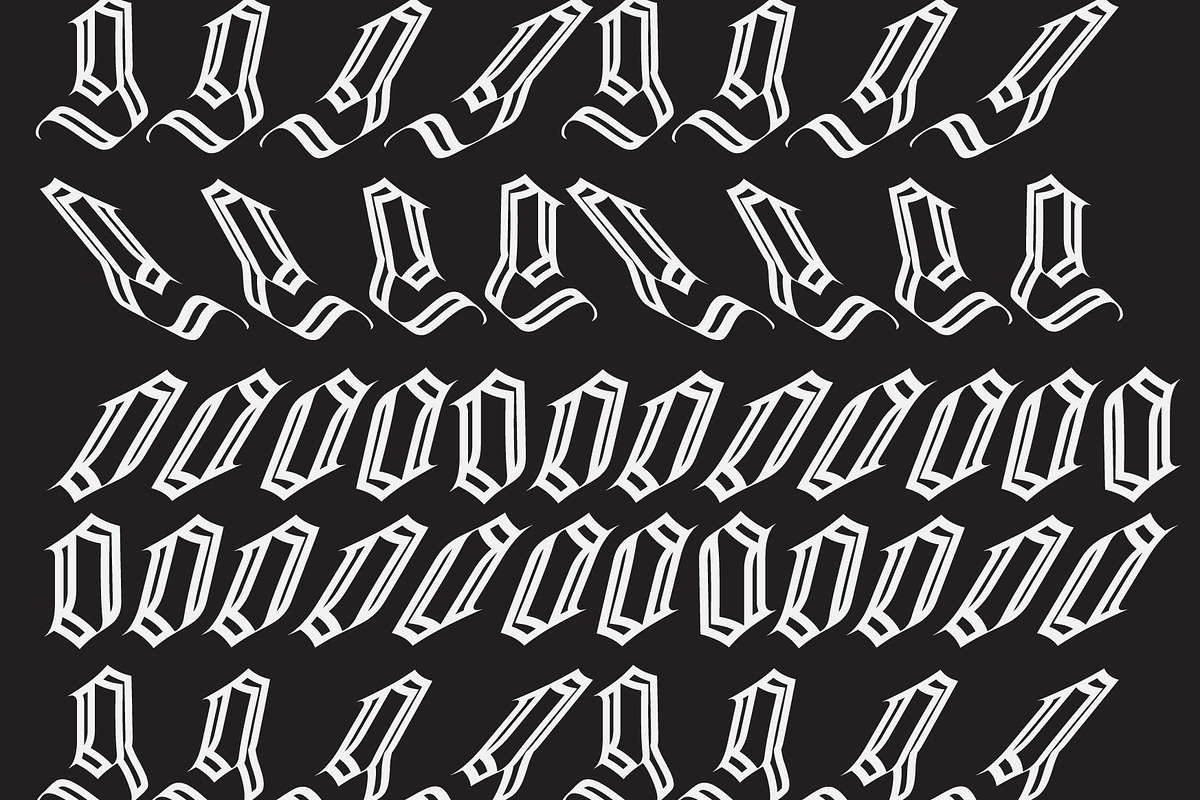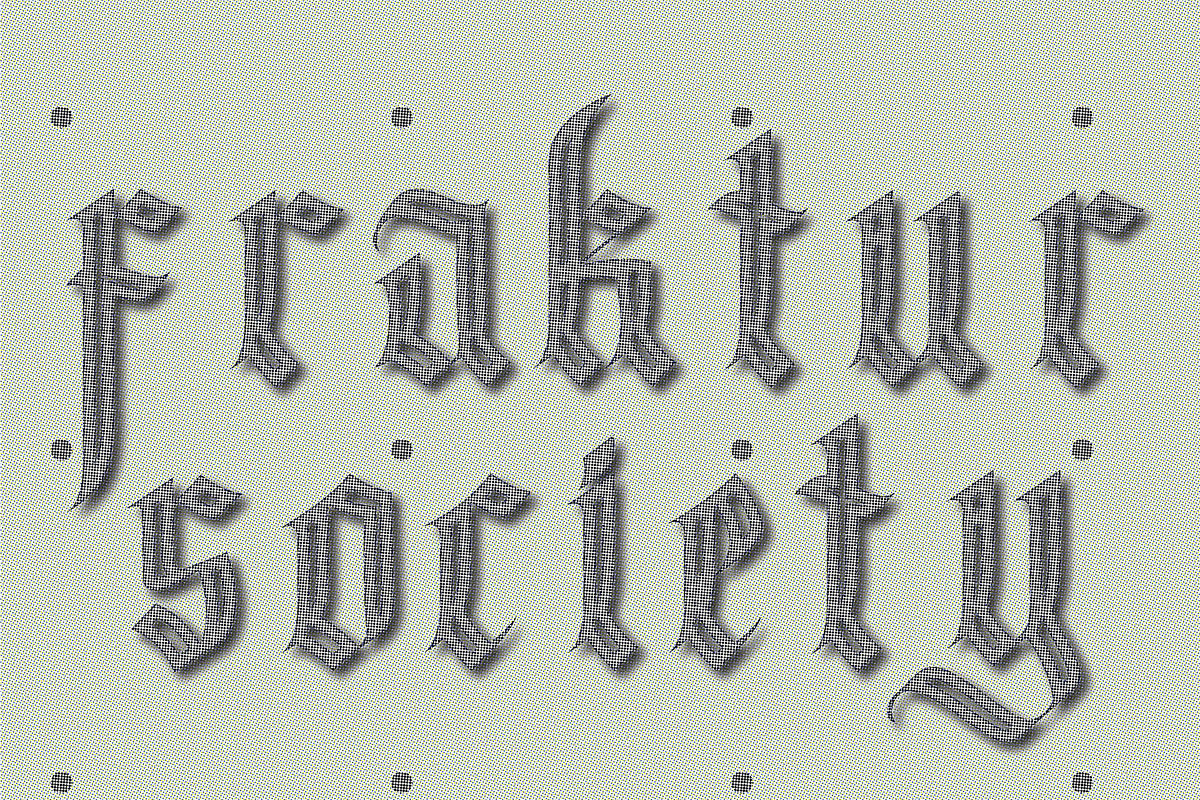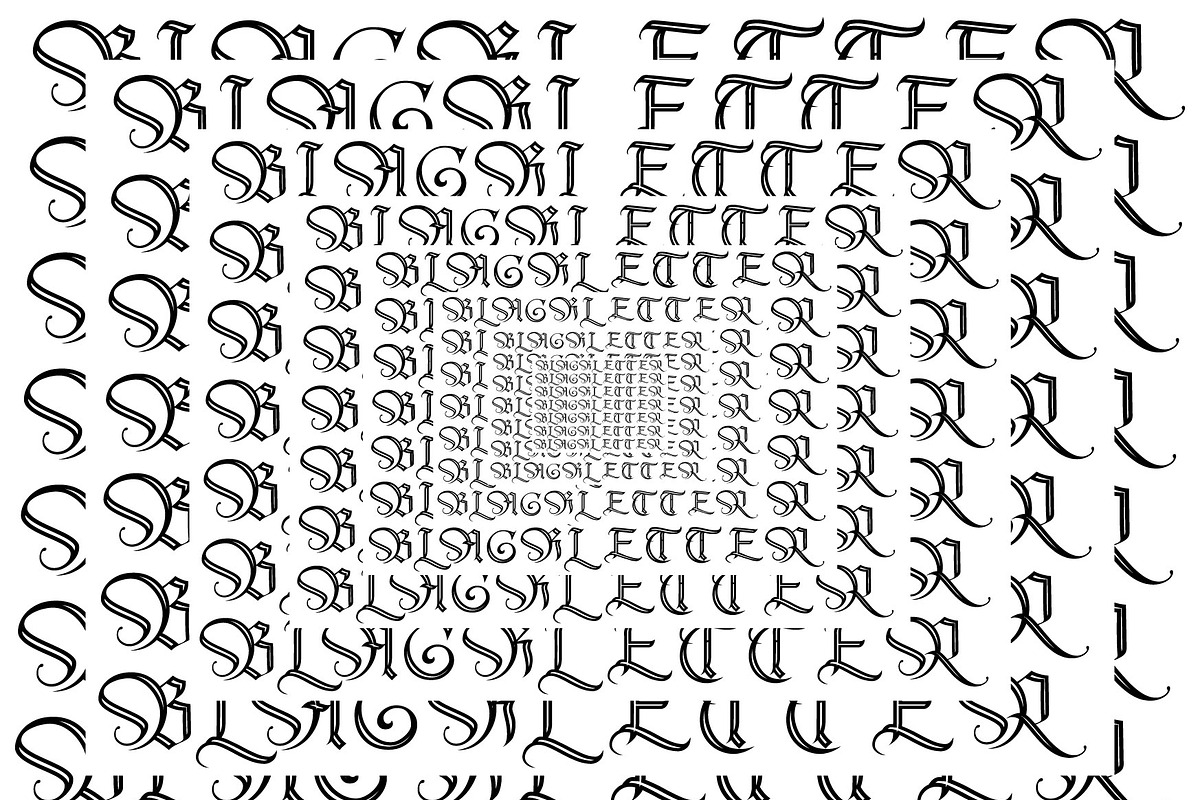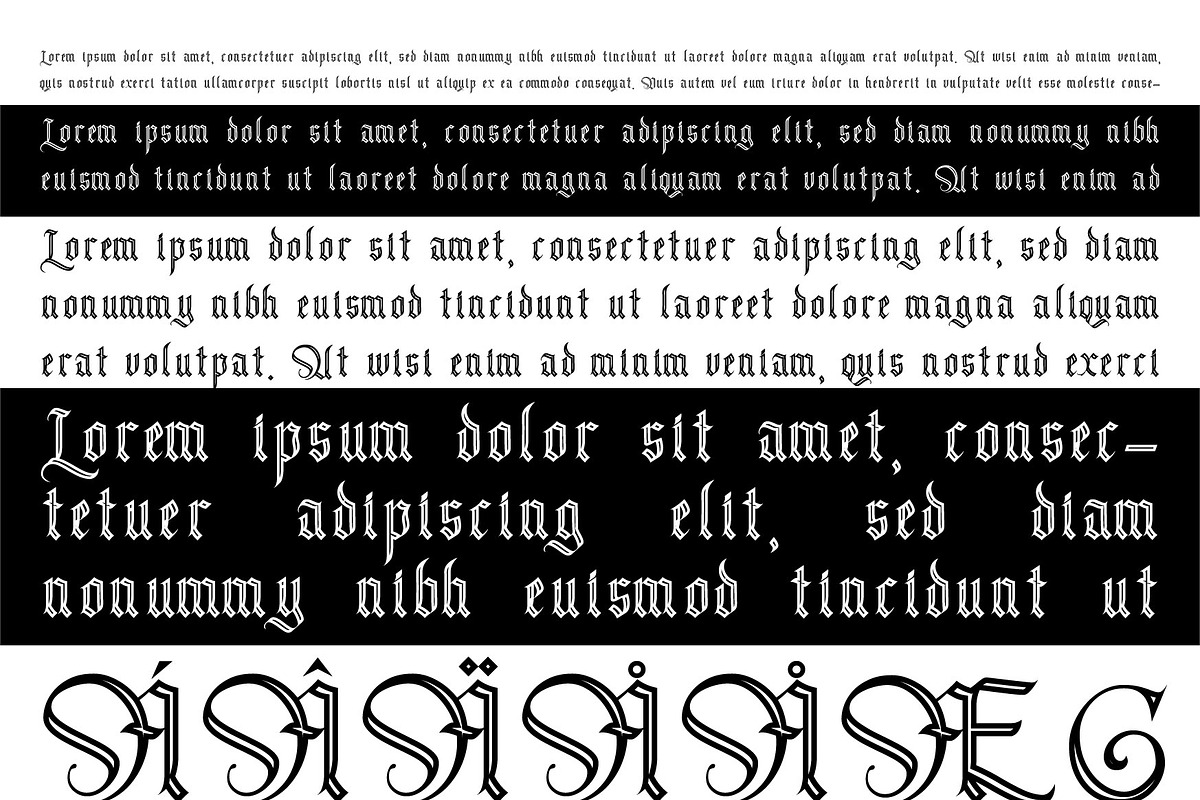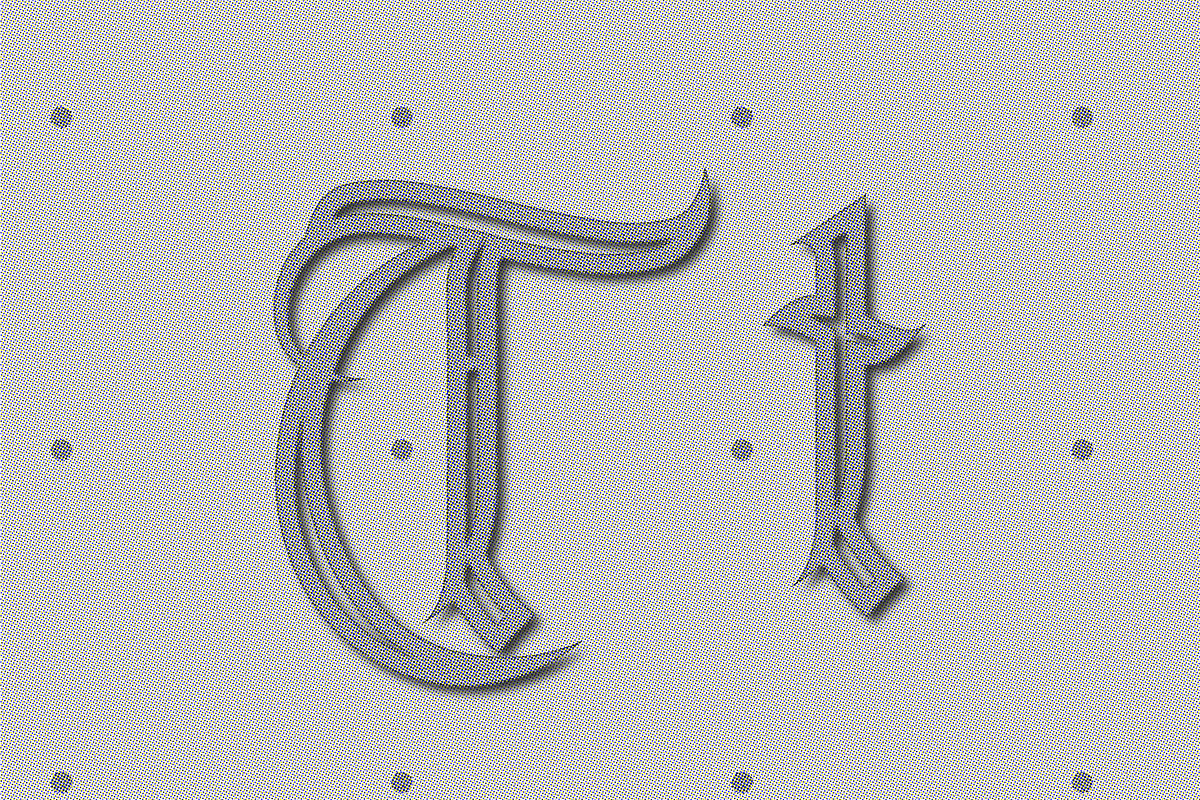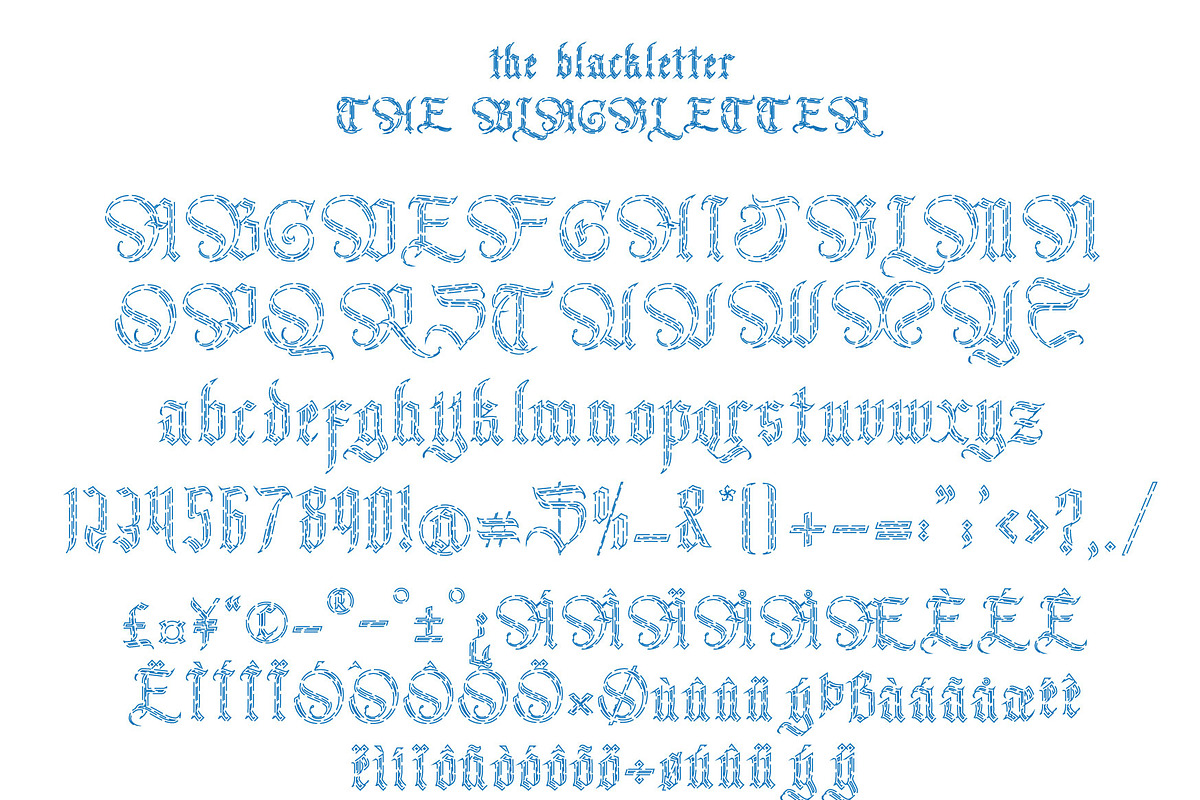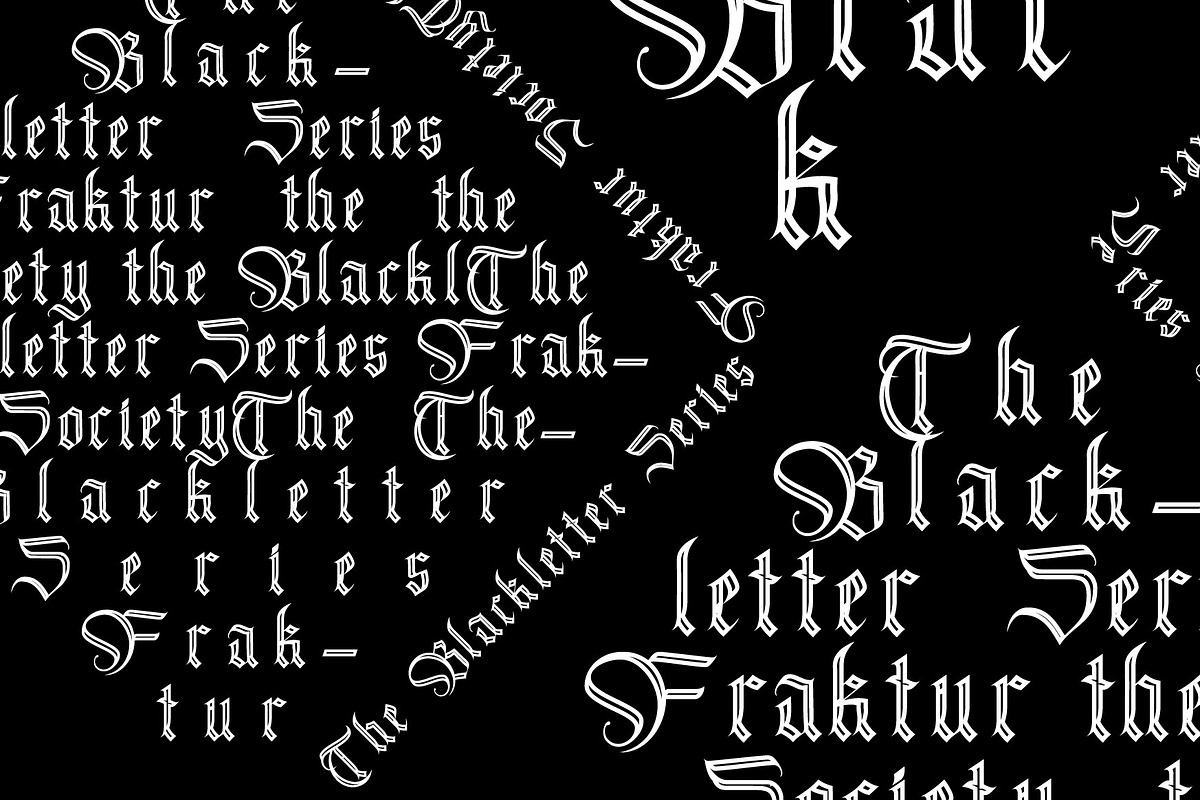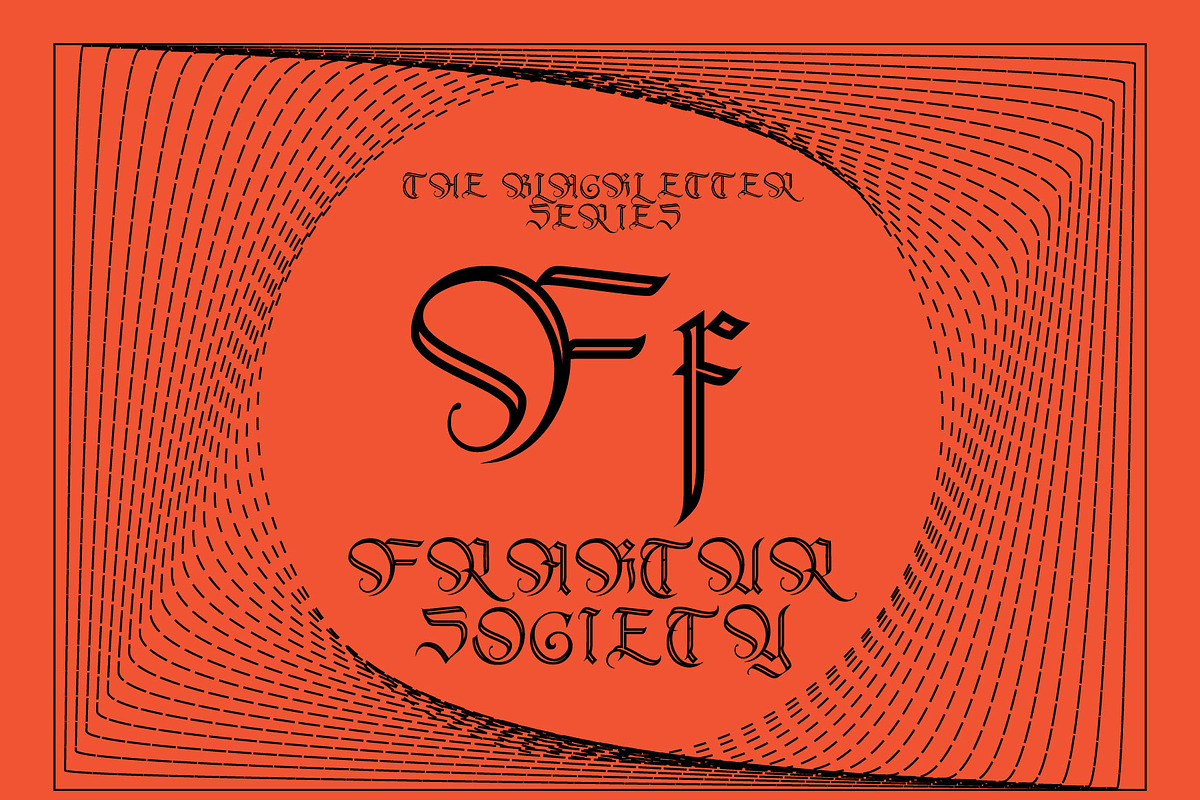
Fraktur Society
Besides the 26 letters of the ISO basic Latin alphabet,[b] Fraktur usually includes the Eszett ⟨ß⟩ in the ⟨ſʒ⟩ form, vowels with umlauts, and the long s ⟨ſ⟩. Some Fraktur typefaces also include a variant form of the letter r known as the r rotunda, and many include a variety of ligatures which are left over from cursive handwriting and have rules for their use. Most older Fraktur typefaces make no distinction between the majuscules ⟨I⟩ and ⟨J⟩ (where the common shape is more suggestive of a ⟨J⟩), even though the minuscules ⟨i⟩ and ⟨j⟩ are differentiated